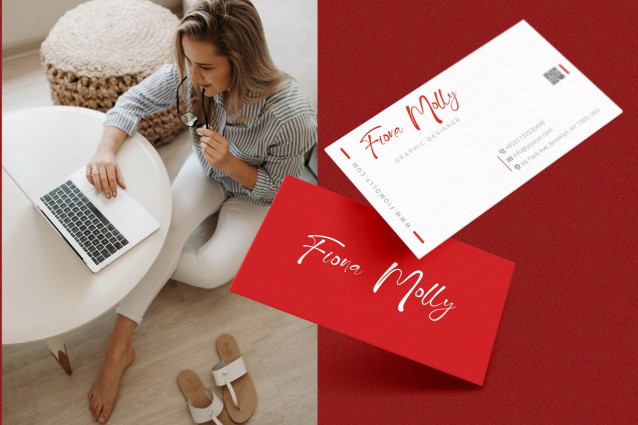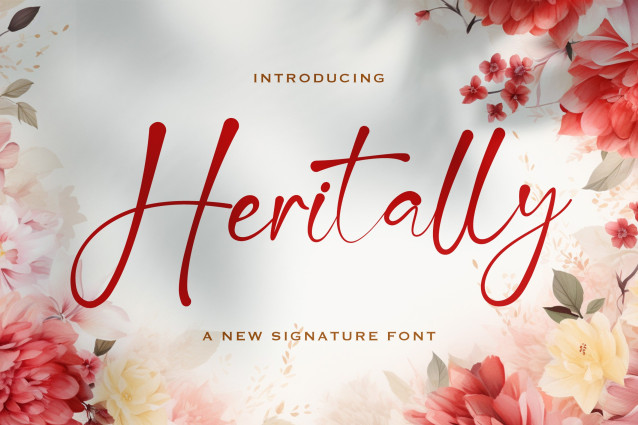
Heritally Script Font
Heritally Script Font is an exquisite signature font that blends elegance and sophistication with a modern touch. Designed to exude a handwritten luxury feel, Heritally is perfect for branding, wedding invitations, fashion logos, business cards, and personal branding. Its smooth, flowing strokes and refined letterforms make every design feel premium and timeless. With multilingual support and well-crafted ligatures, this font ensures versatility while maintaining its graceful charm. Elevate your projects with the artistic beauty of Heritally, where every letter is crafted to perfection.